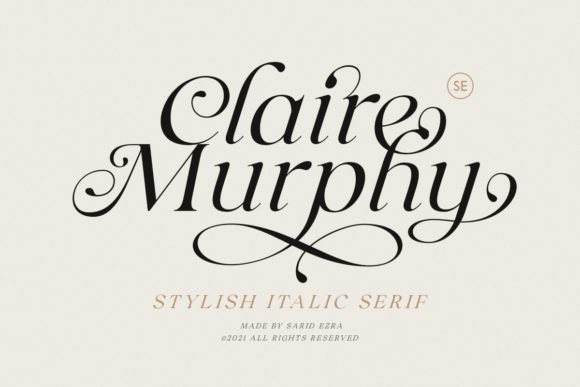
Introduction to Claire Murphy Font
Claire Murphy is a classic and stylish serif font.
Its flexibility and neat style will brighten up each of your designs Have fun with this cool font and explore its endless variations.
Key Features of Claire Murphy Font
Why Choose Claire Murphy Font?
Claire Murphy Font offers exceptional quality and versatility, making it a valuable addition to your design toolkit. Whether you’re creating for personal projects or commercial use, Claire Murphy Font delivers professional results.